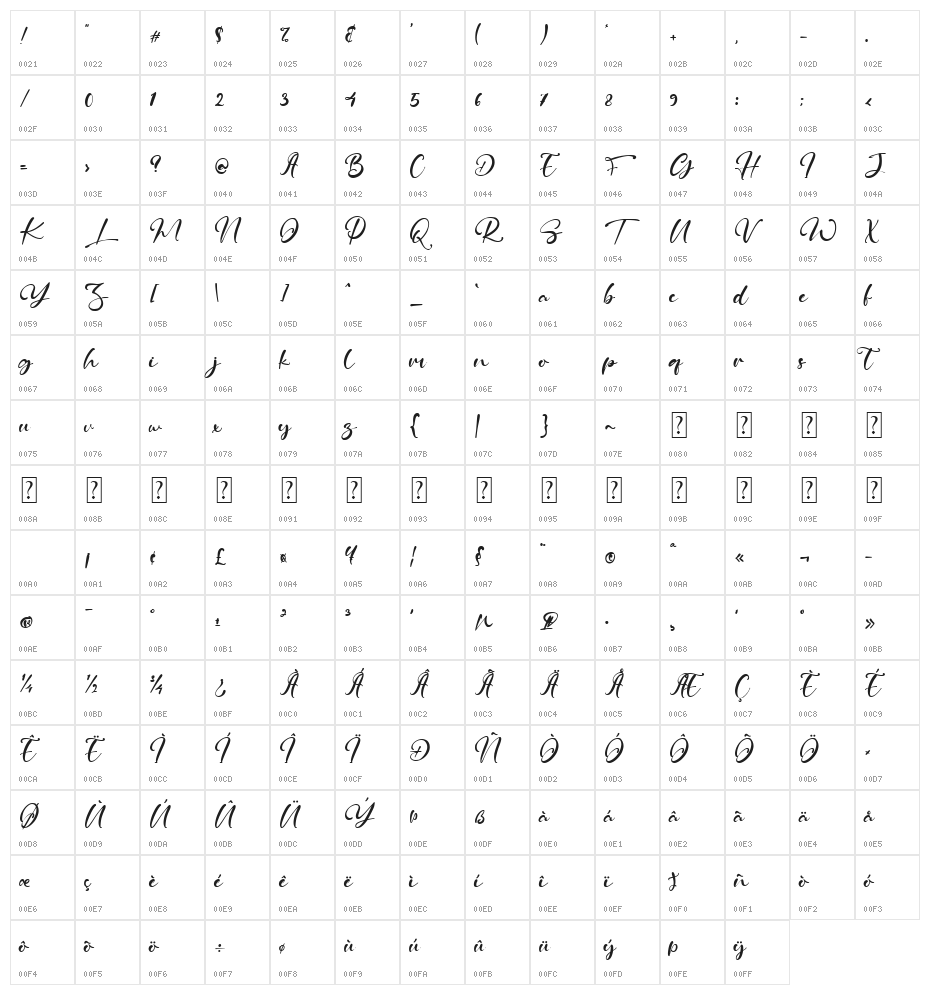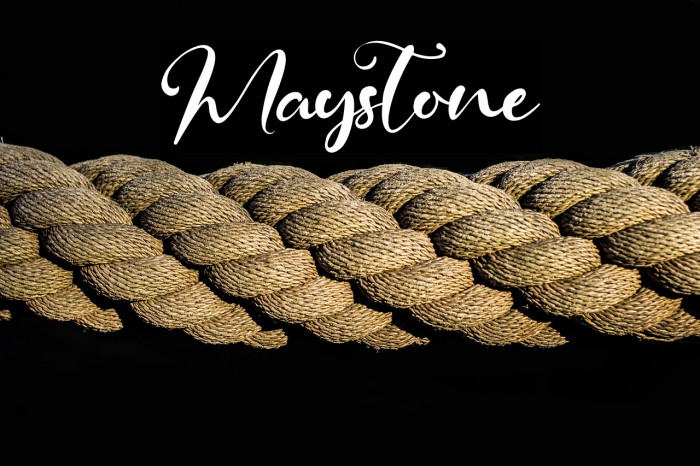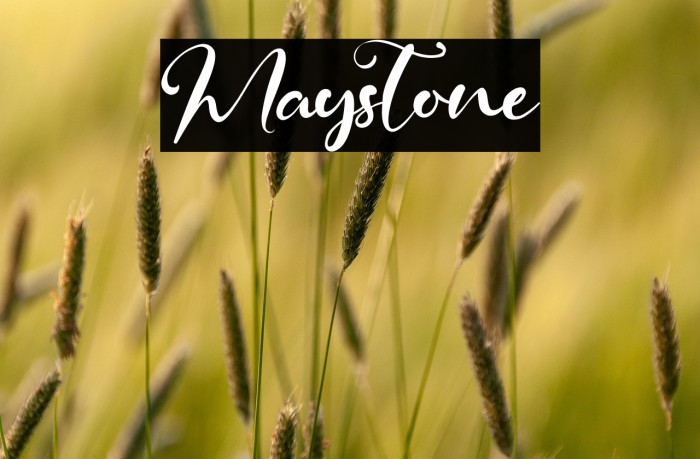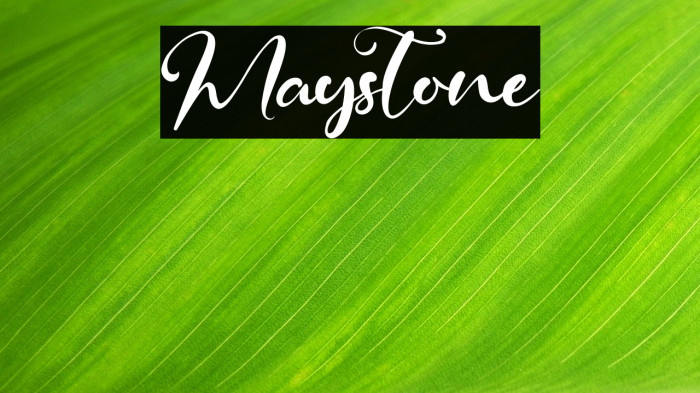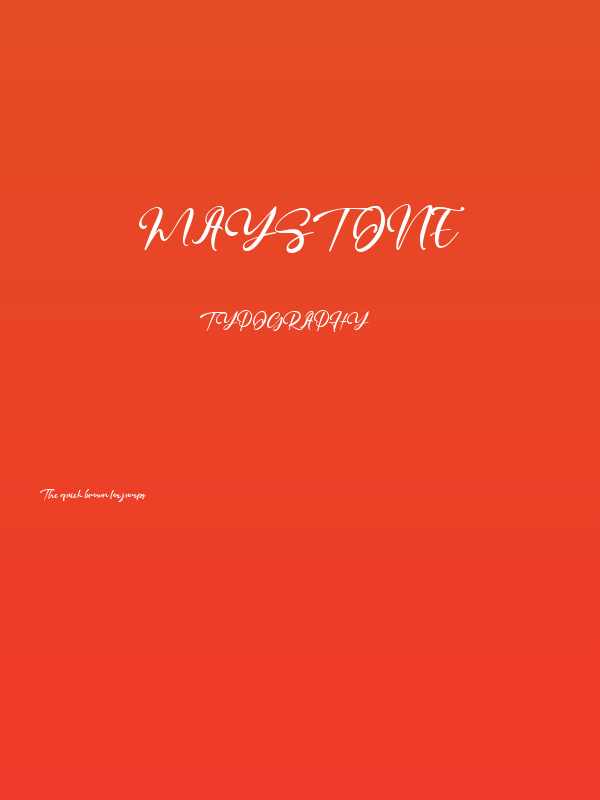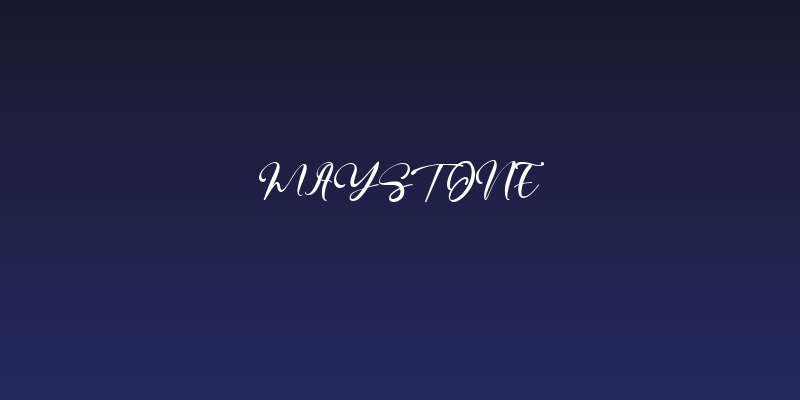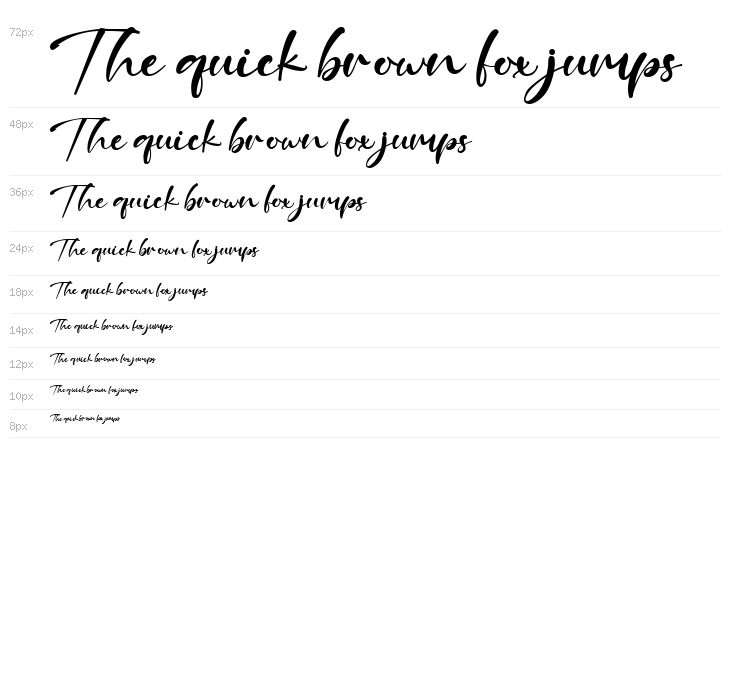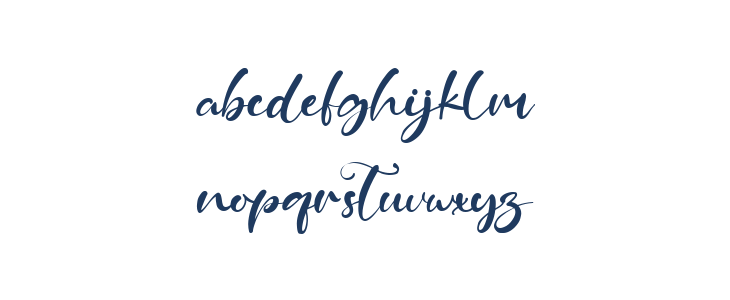
Maystone Font
Maystone Description
This elegant script font features flowing, cursive letters with a modern flair. The uppercase characters are beautifully crafted with sweeping strokes and delicate curves, creating a sense of movement and grace. The lowercase letters maintain a consistent style, with smooth connections and a slightly more compact form. Numbers and special characters are designed to complement the overall aesthetic, offering a cohesive look. The font's fluidity and artistic touch make it ideal for projects that require a personal or sophisticated feel.
| Proposed Projects | Ideal for wedding invitations, greeting cards, branding, and elegant packaging. |